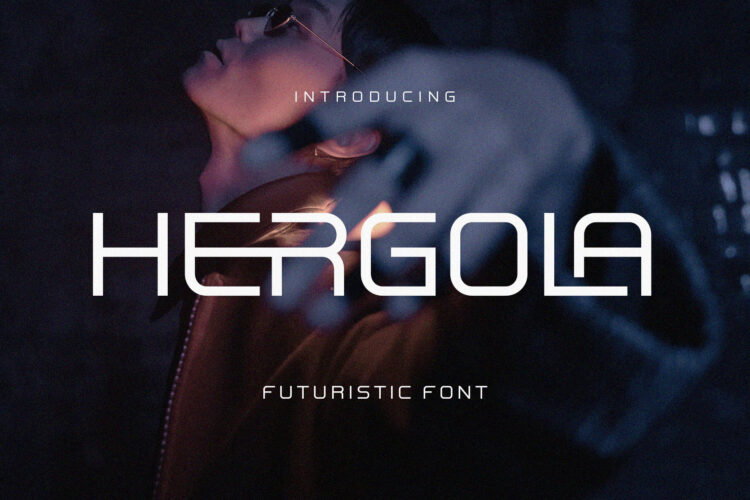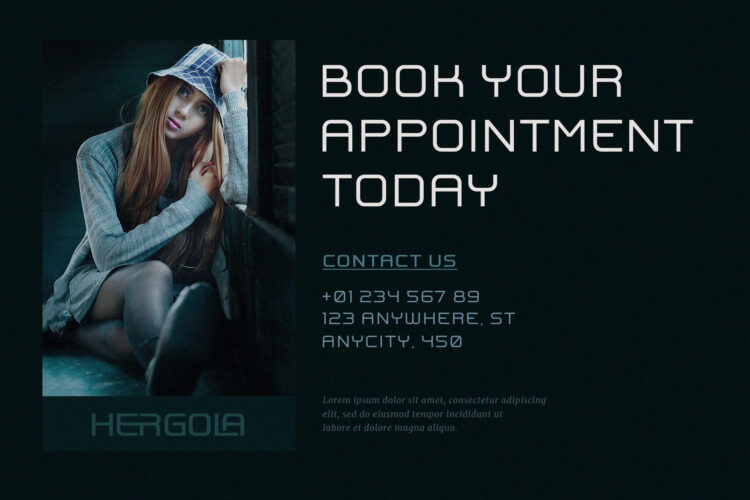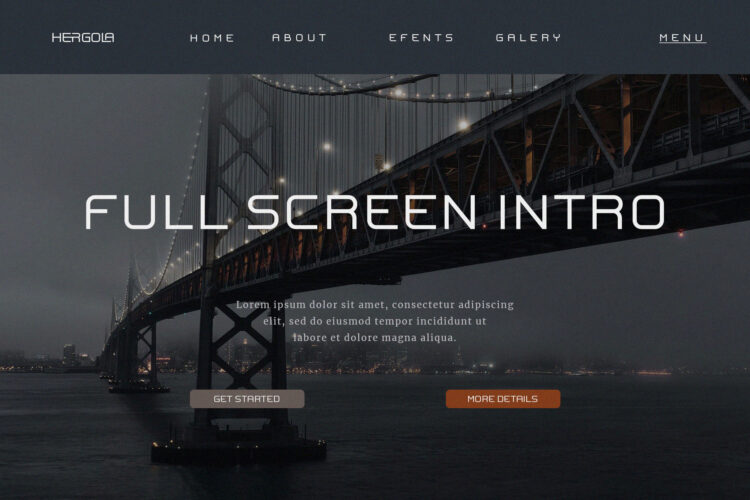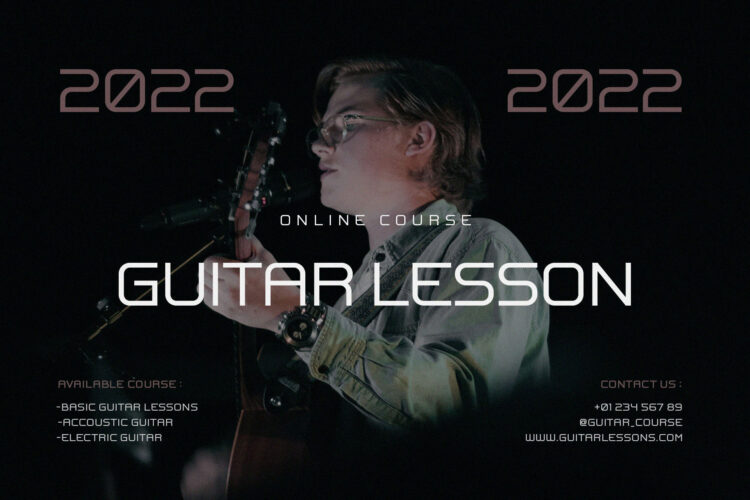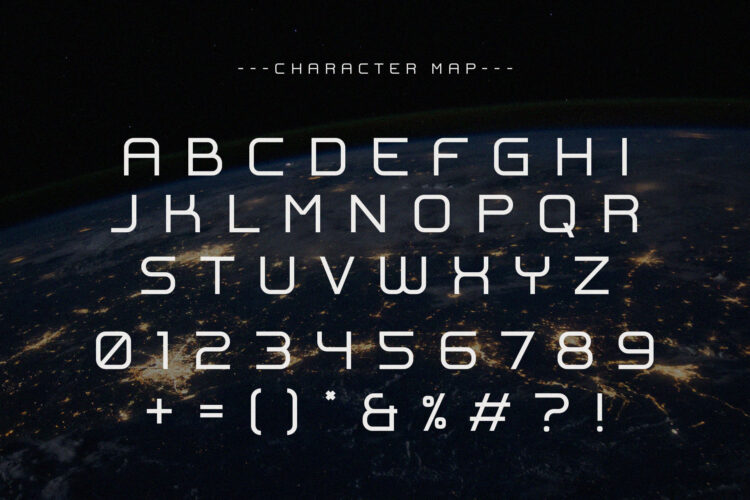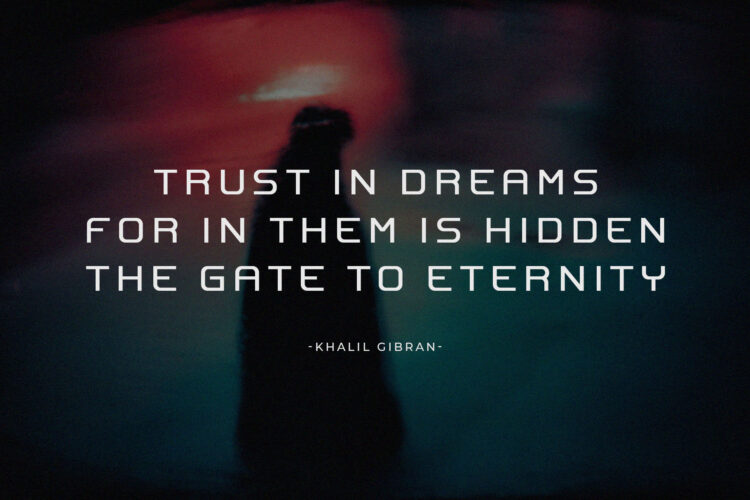
Introducing Hergola Futuristic Sans Serif.
Hergola is a futuristic and modern typeface, best used as a display for headings, logos, branding, magazines, product packaging and invitations. Hergola come with clean lines and smooth curves give any project an extra touch of class.